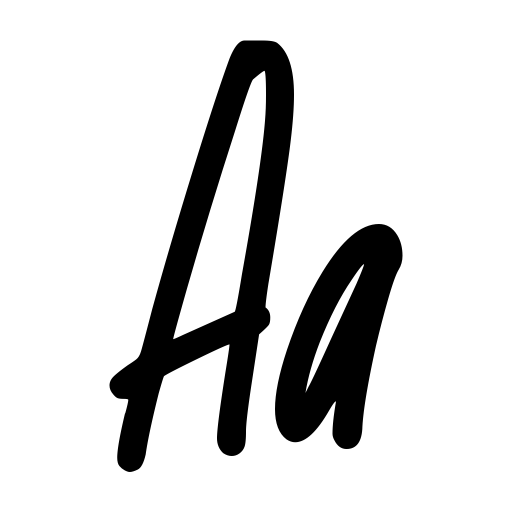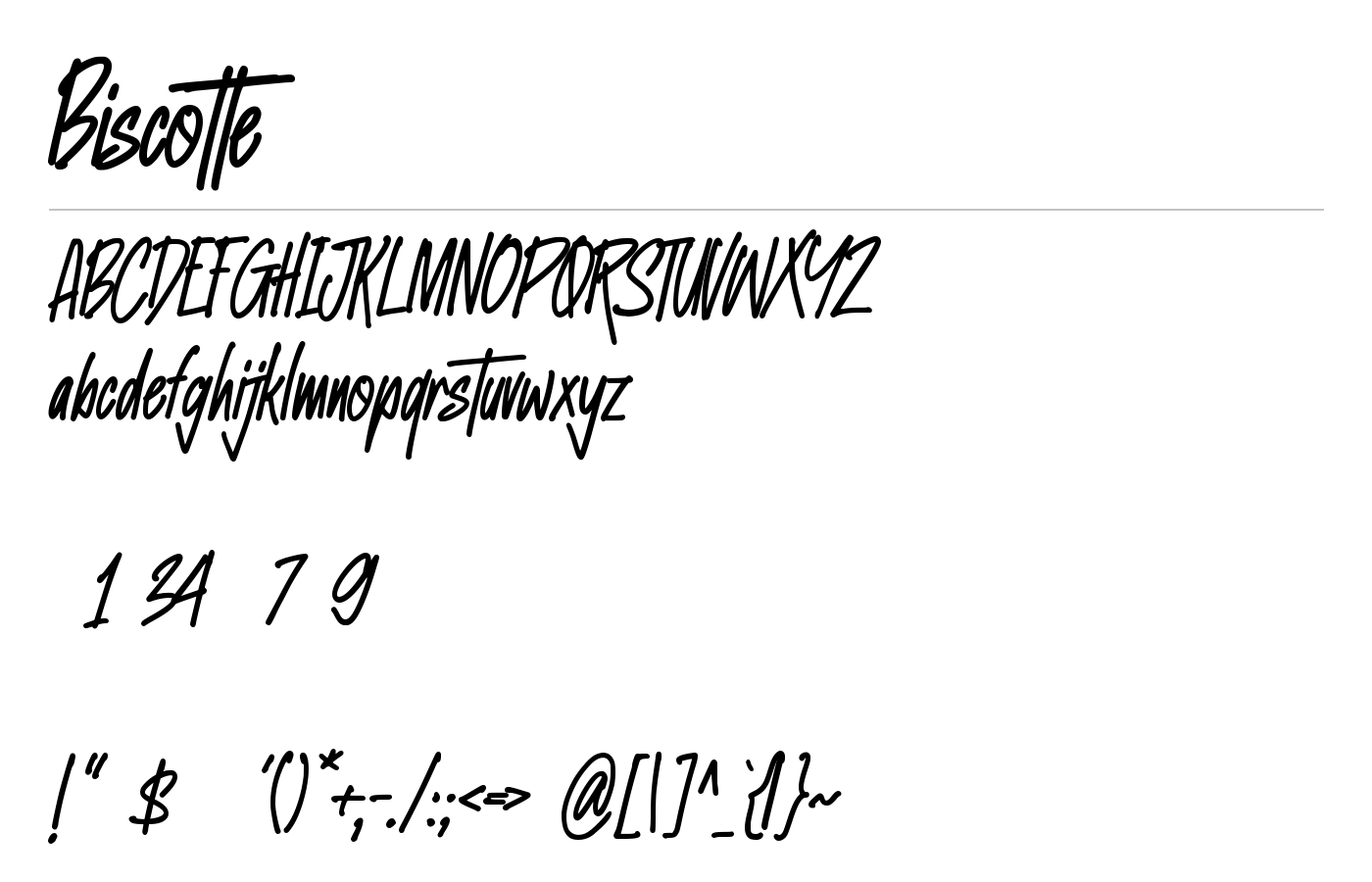
Biscotte is a lively and modern handwritten script font characterized by its tall, narrow letterforms and casual, dynamic strokes. It features a consistent medium weight with smooth, slightly textured lines that convey an energetic and friendly vibe, making it perfect for creative branding, informal headlines, and playful designs. This font’s quirky personality and legible style work well in logos, posters, and social media graphics where a personal, approachable touch is desired.
| Font family | Biscotte Font |
| Designer | Anang F & Malik Wsn | Gassstype© Studio 2021 |